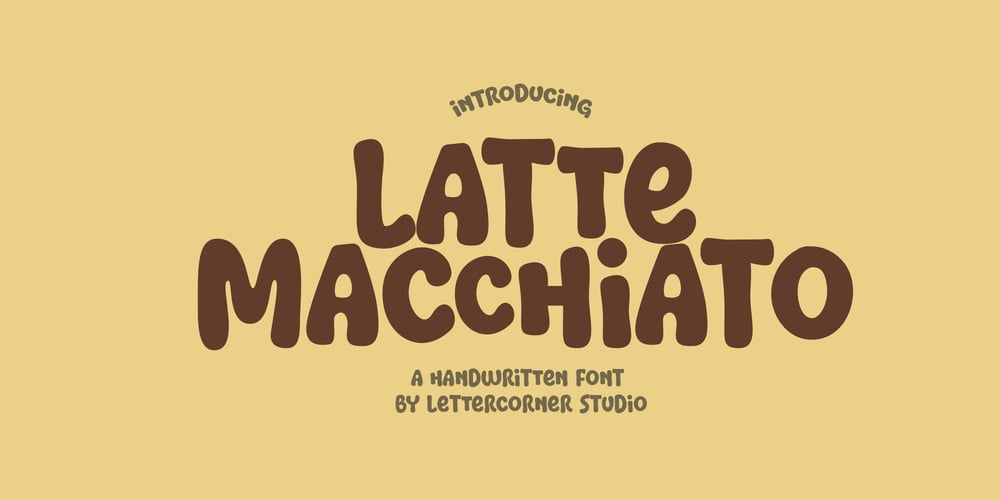
Latte Macchiato Font Family was designed by Muhammad Afif Ersya and published by Mevstory Studio. Latte Macchiato contains 1 styles and family package options. Latte Macchiato is a fun block font.This font is perfect for your craft projects, svg files, procreate, teachers, social media quotes, shirts, stickers, and more!